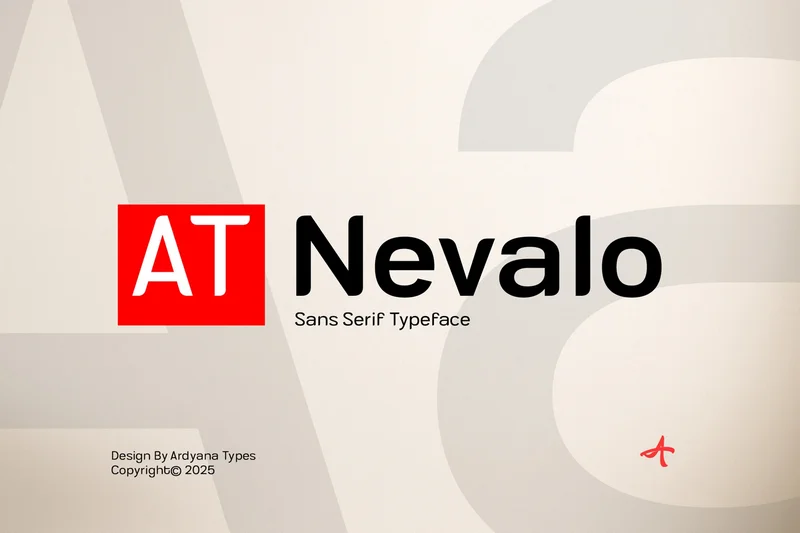
Nevalo
Nevalo is a clean and modern sans serif typeface designed with sharp precision and minimalistic style. Inspired by today’s typography trends, this font brings professional elegance and high readability to any design project.
Whether you’re working on branding, posters, editorial layouts, websites, or packaging—Nevalo adapts perfectly to both digital and print needs. It’s a versatile typeface that adds confidence and clarity to your visual language.